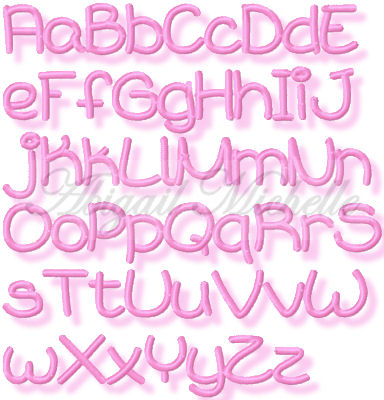
Her Bubbly Personality Monogram Font - 6 Sizes!
Her Bubbly Personality is a fun alphabet which mimics the whimsical handwriting of a teen/tween girl writing to her best friend. The 4" sizes may need a 5x7 hoop to stitch some of the wider letters. The mini half inch size has a regular dot instead of the circle. All sizes feature a satin stitch except for the 3" and 4" sizes which include a filled column stitch. Includes .5", 1", 1.5", 2", 3" and 4" tall sizes. Sizes are approximate and correspond to other letters. Great for stitching on ribbon for bows!